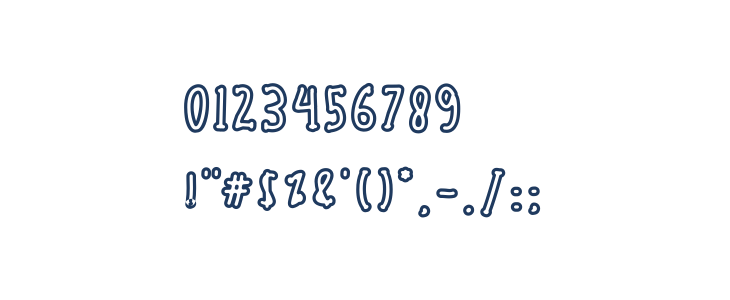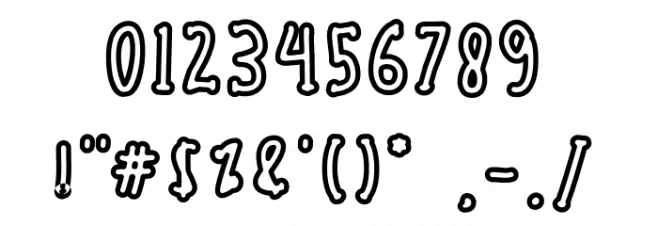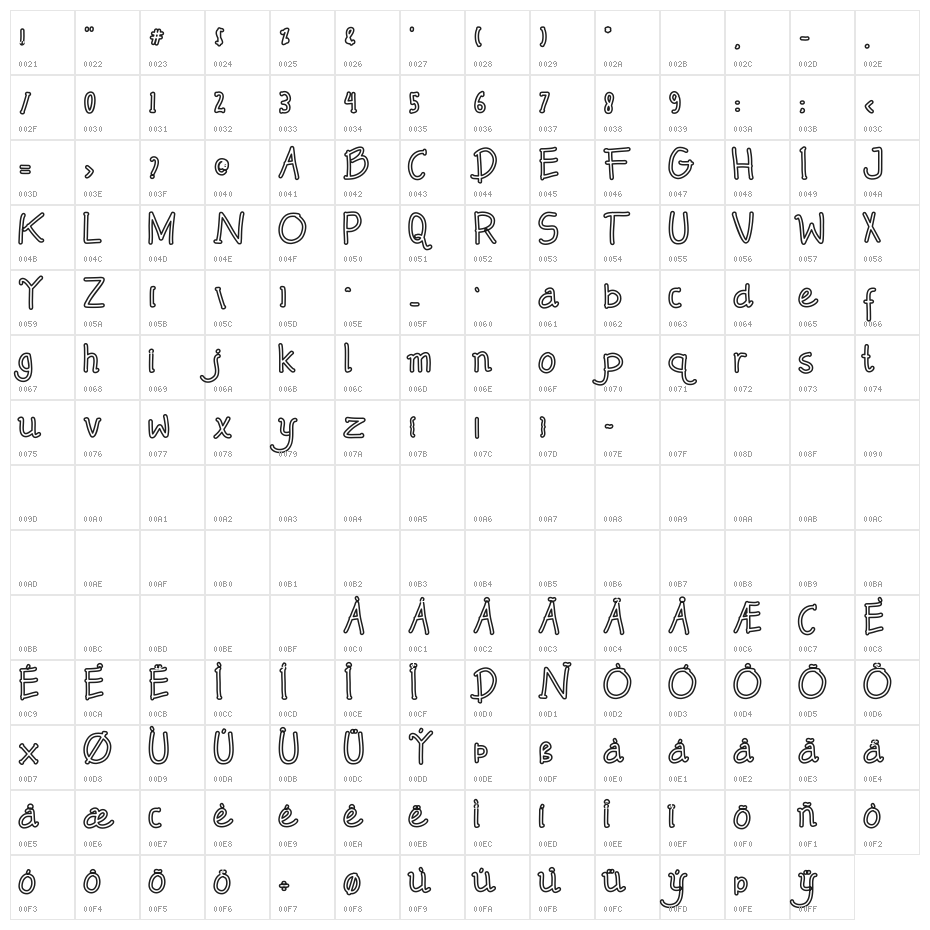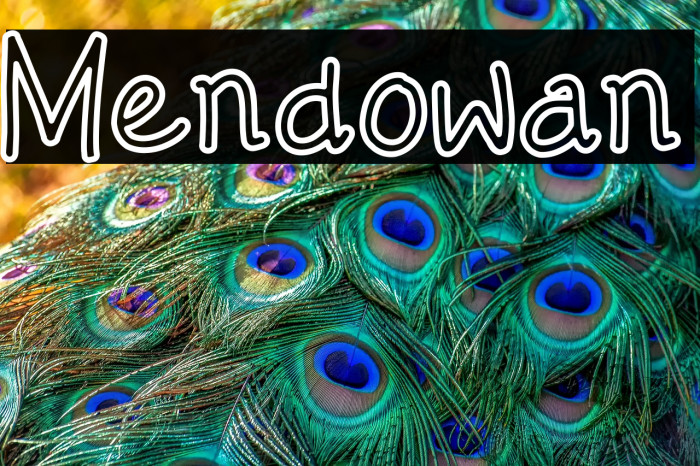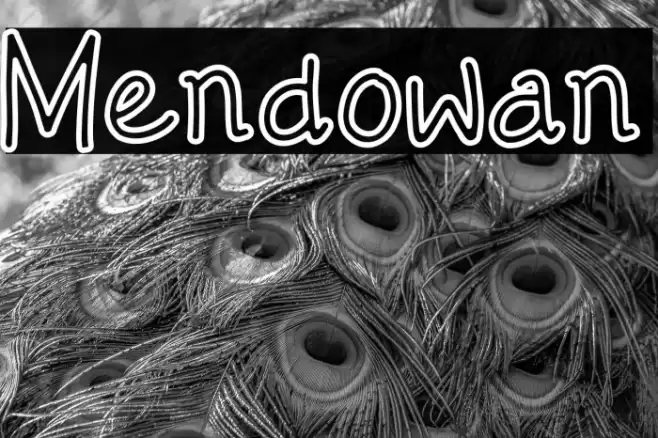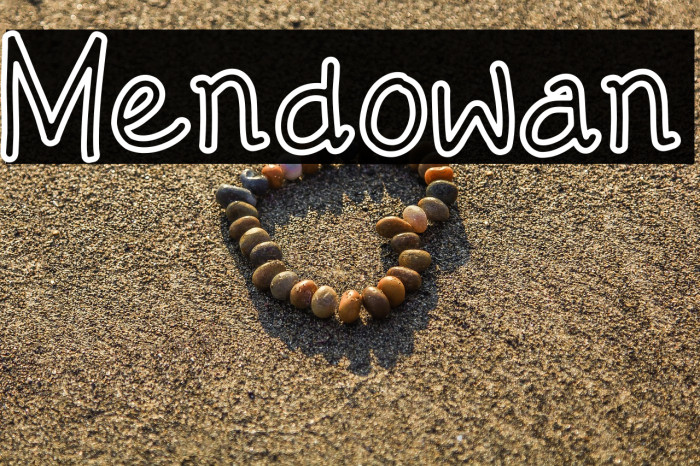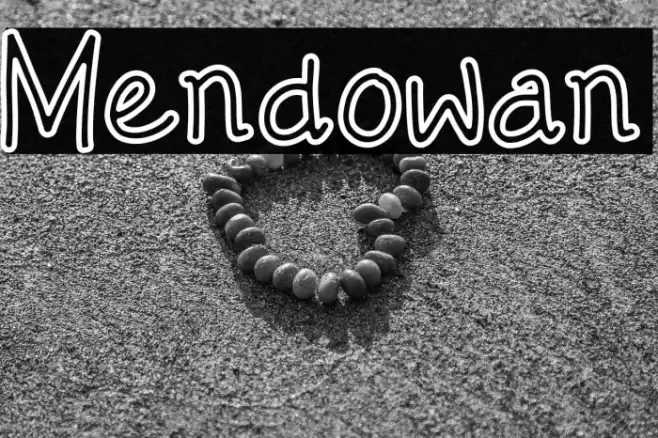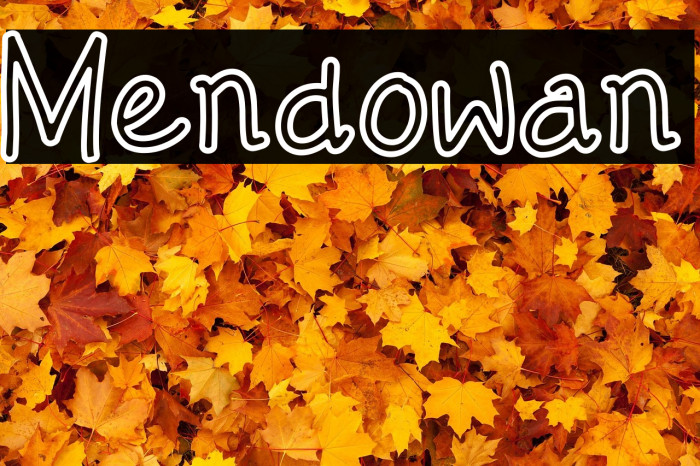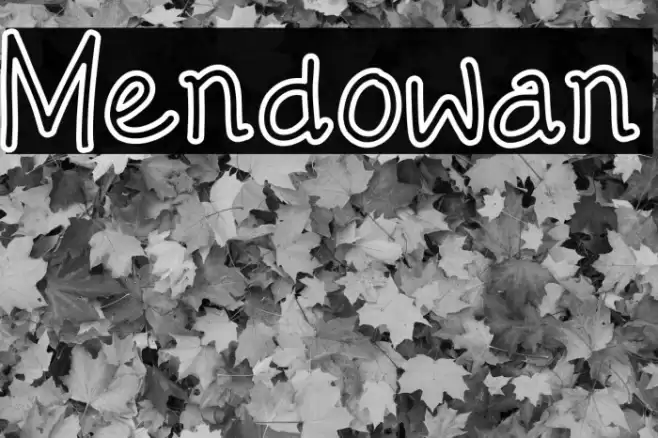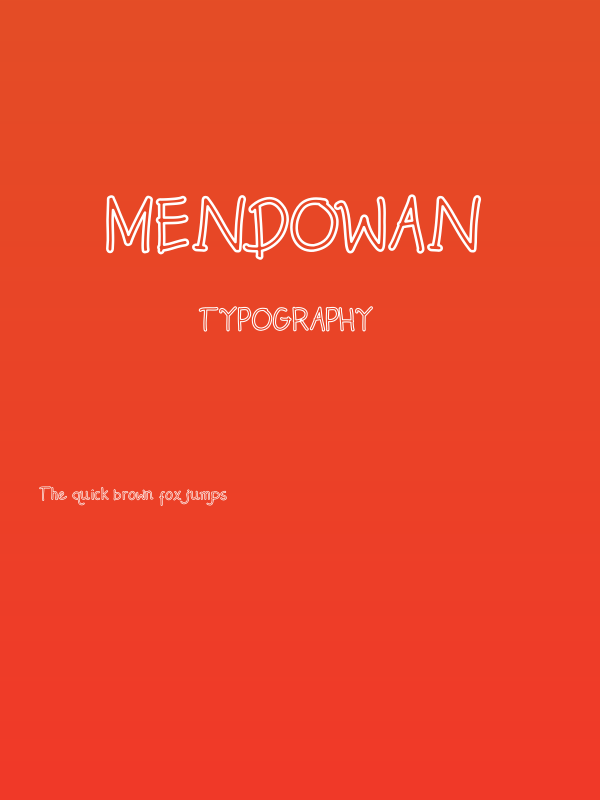
Mendowan Font
Mendowan Description
This font features a playful and whimsical style, characterized by its hand-drawn appearance and uneven stroke widths. The letters have a casual, informal feel, with slightly irregular shapes that give it a unique charm. The uppercase and lowercase letters maintain a consistent style, with rounded edges and a slight tilt that adds to the font's lively personality. The numbers and special characters follow the same design principles, ensuring a cohesive look across all elements. This font is perfect for projects that require a fun and approachable aesthetic, such as children's books, greeting cards, or playful branding.
| Proposed Projects | Ideal for children's books, greeting cards, playful branding, and casual invitations. |